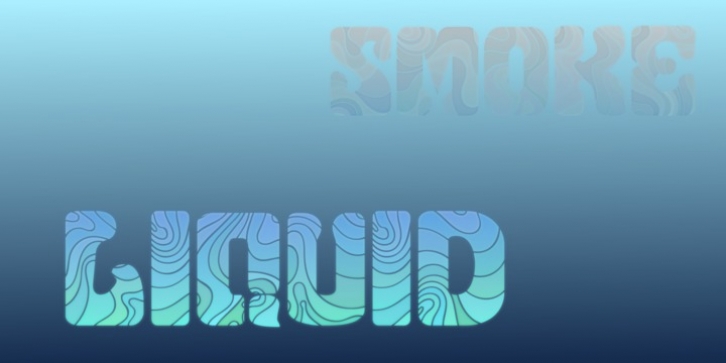
Ari Cube Spiro is a typeface one should play with IMHO. There are two styles in this family: regular and bold. Bold is kind of outlineish, extruded, stampstyle font fits perfectly on top or under regular one. Giving thus possibilities for coloring options.
The way I like to use Regular Spiro is to make some words, make fonts to paths, ungrouping, break apart, select all and give selected paths random color. And this all as a vector graphic.
Use this font to create awesome hippie, surfing, book covers, album covers, retro stuff, liquid kind of things and wine bottle labels.
I consider this typeface family original and unique.
There is no kerning with the AriCubeSpiro typeface family, since fonts are designed to overlap each other!
AriCube typefamily will play well with this font.